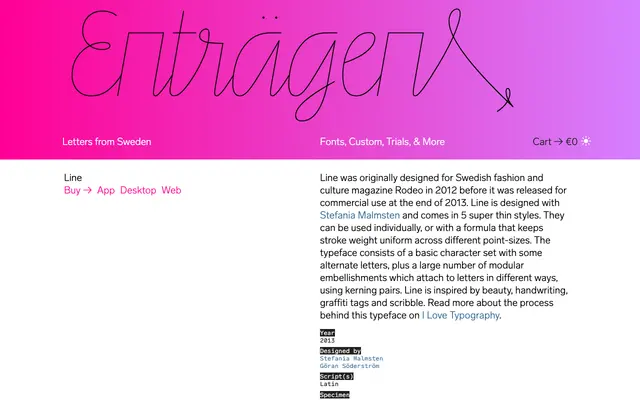
Line
Letters from Sweden · Stefania Malmsten, Göran Söderström · 2013
Line specimen from Letters from Sweden
A super-thin display typeface designed for Swedish fashion magazine Rodeo, combining gestural handwriting influences with modular embellishments built from kerning pairs.
Originally commissioned for the Swedish fashion and culture magazine Rodeo in 2012, Line was designed by Stefania Malmsten and Göran Söderström and released commercially in 2013. It comes in five ultra-thin styles intended for use individually or via a formula that keeps stroke weight consistent across point sizes. The family includes alternate letters and a large set of modular decorative elements that attach to characters through kerning pairs, drawing inspiration from beauty, handwriting, graffiti tags and scribble.
Line is a super-thin display face inspired by handwriting, graffiti tags and scribble, with modular embellishments and alternate letters that give it a distinctly gestural, decorative character placing it firmly in the display script category.